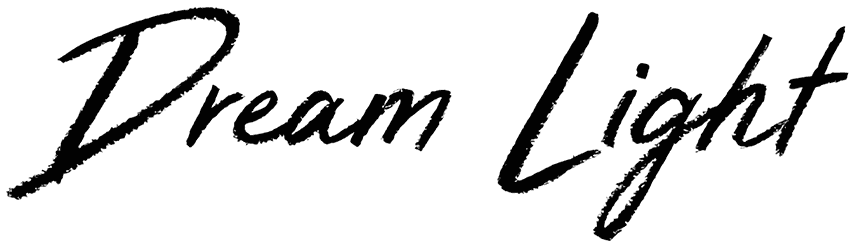
Dream Light Font
Offering high-end and distinct graphic content is not a difficult task anymore with the help of lovely 80s fonts such as Dream Light, which comes with angular and elongated characters. This handwritten font would sit on movie posters, greeting cards, billboards, or headlines and takes them to another level.